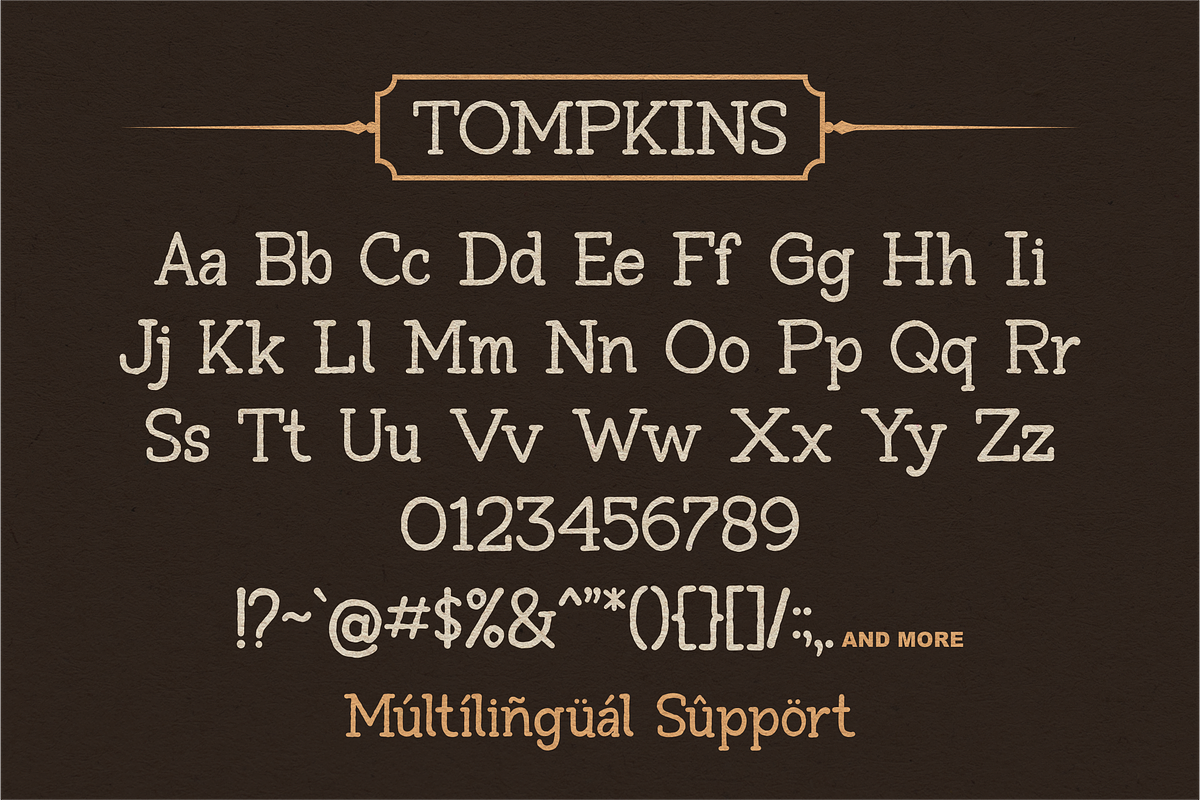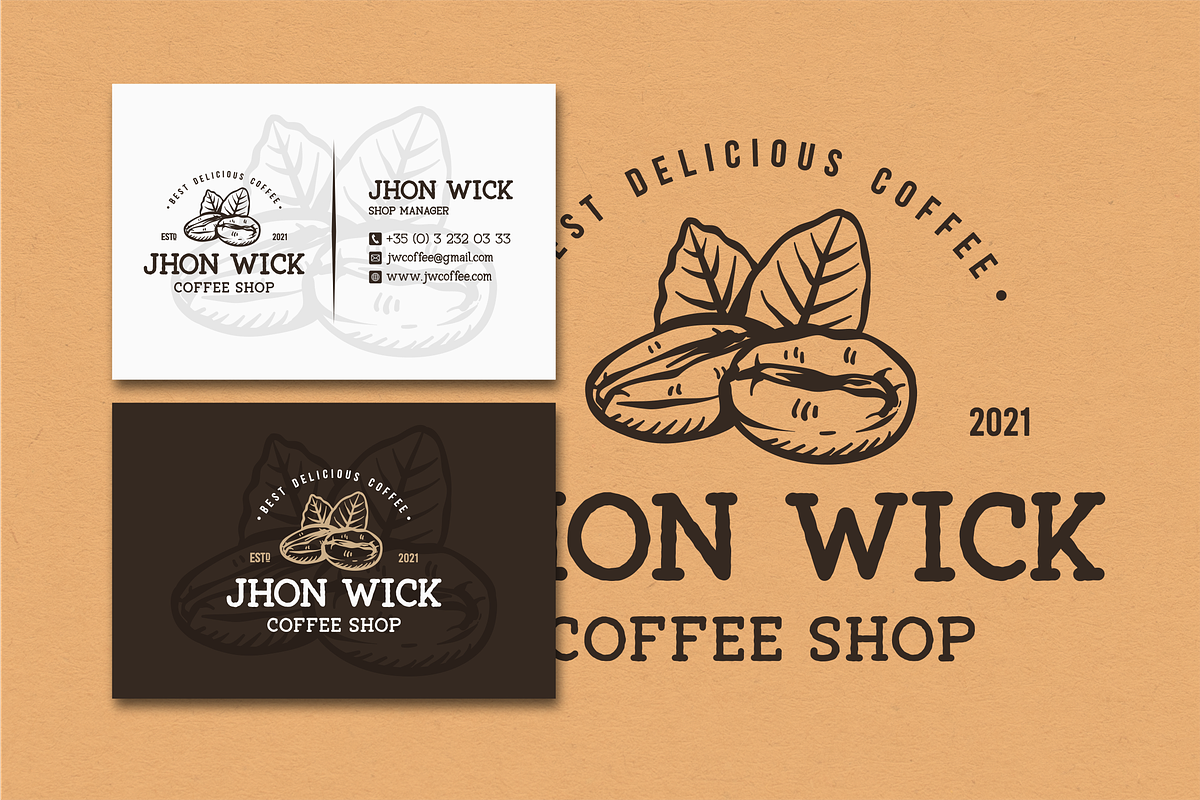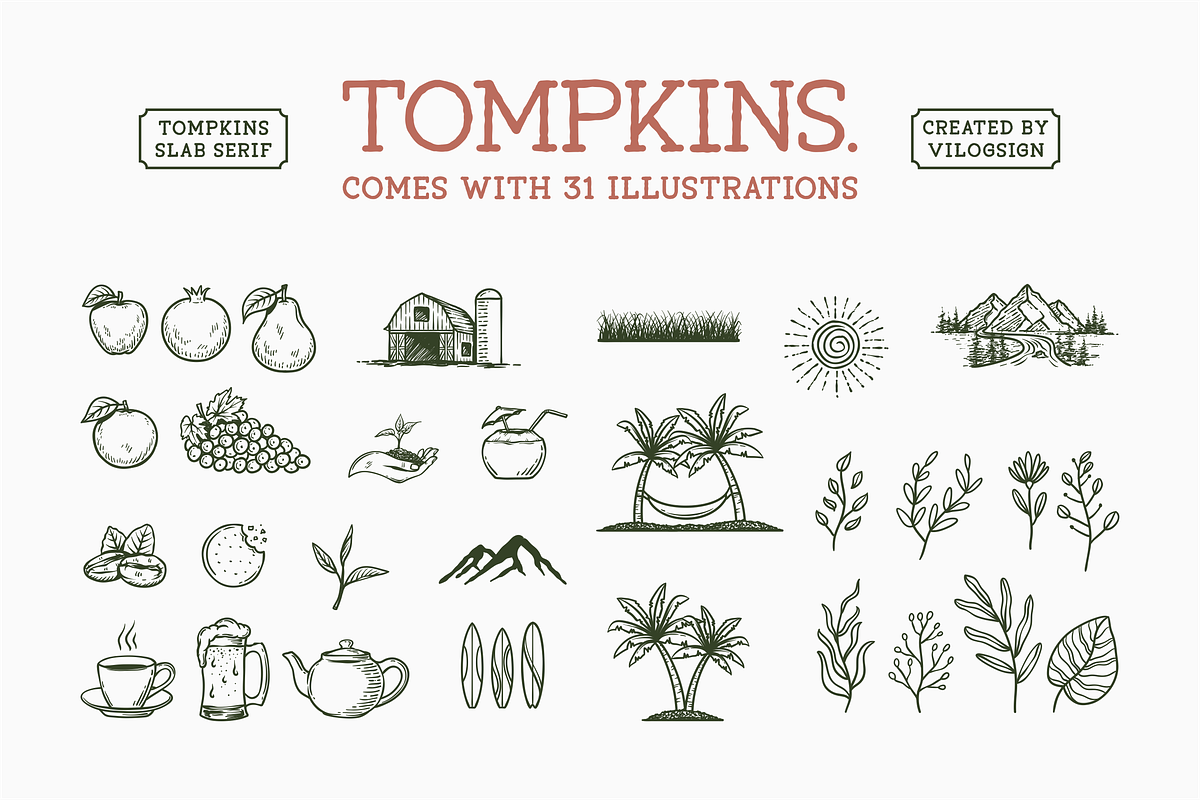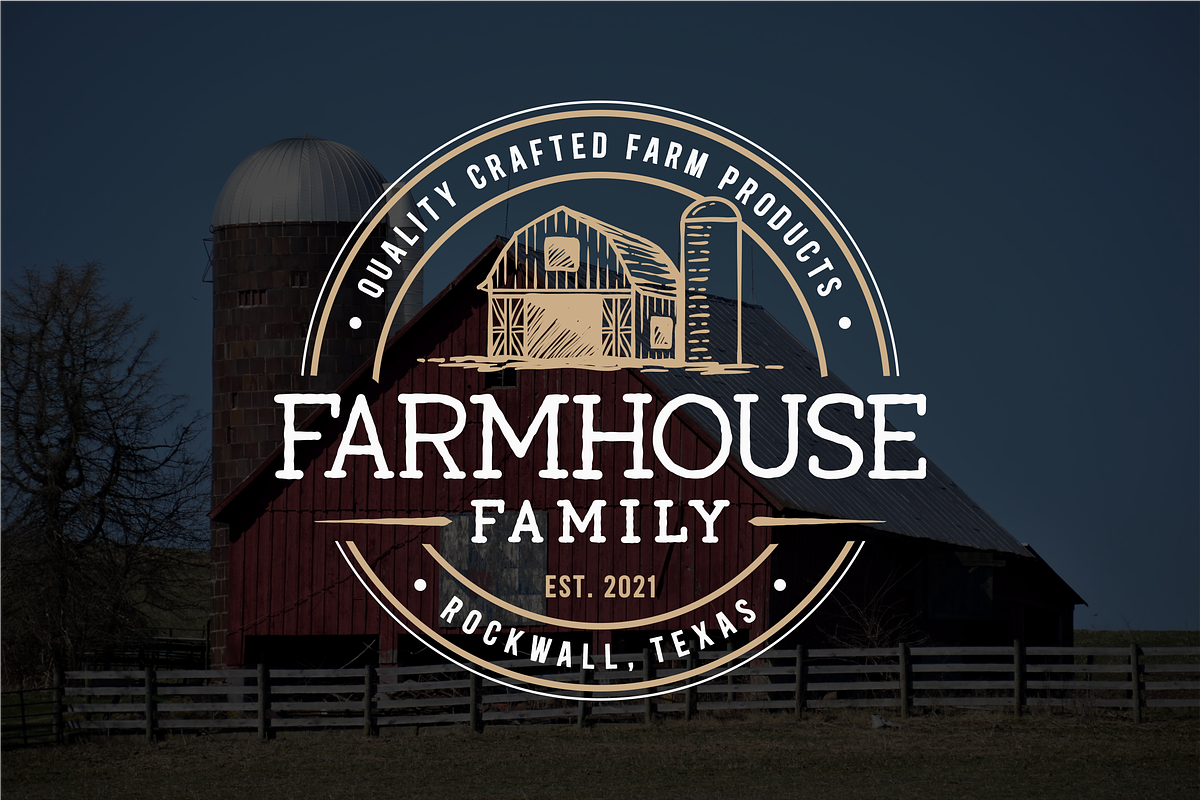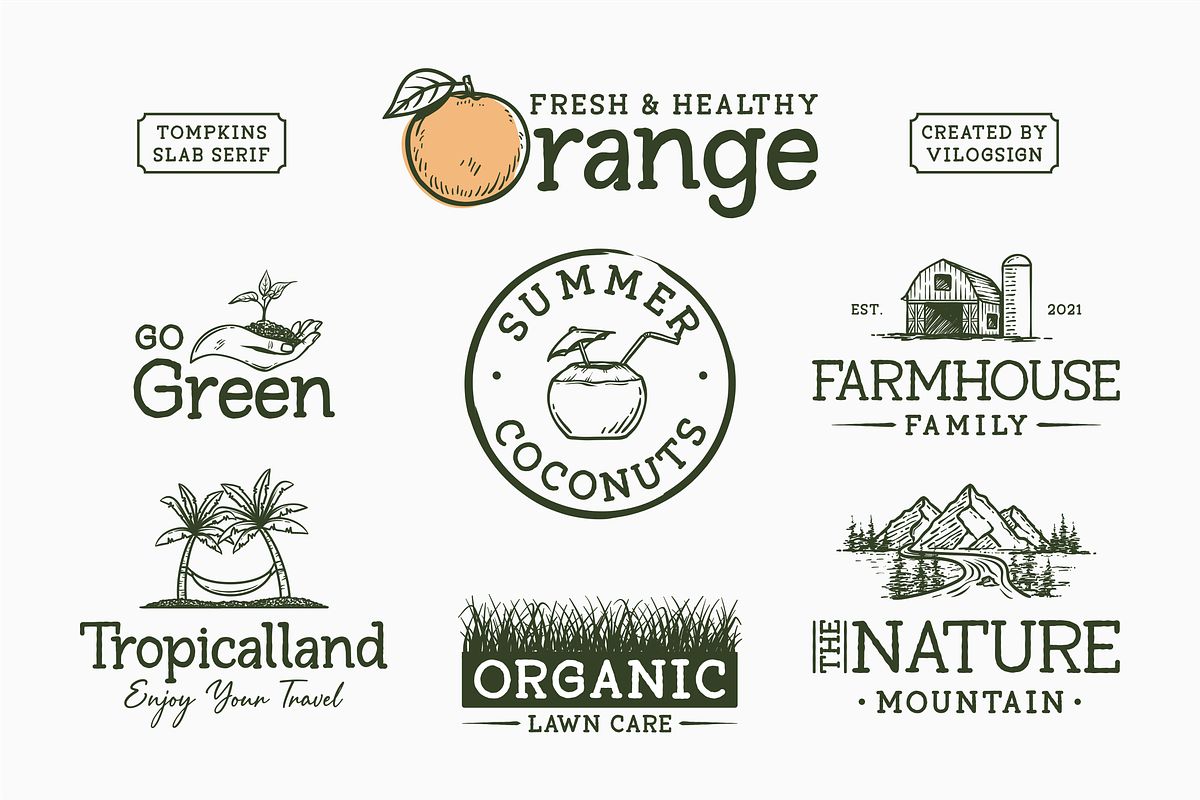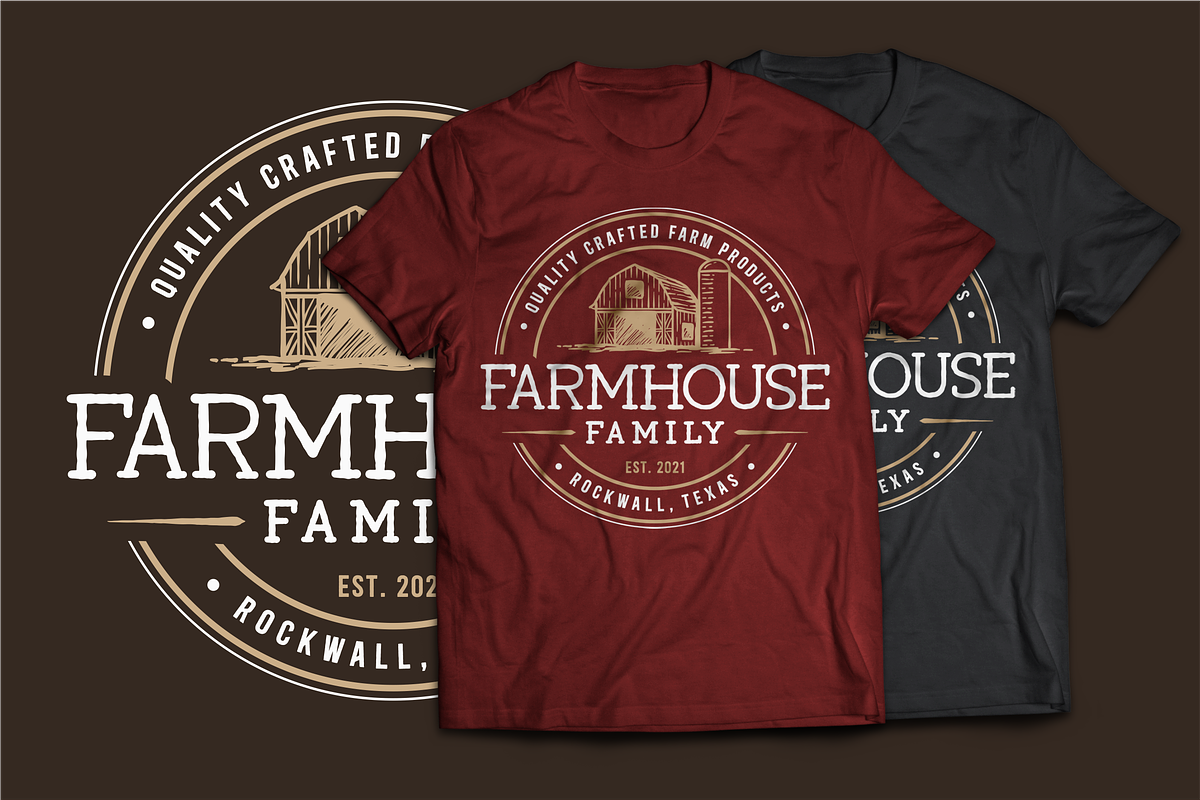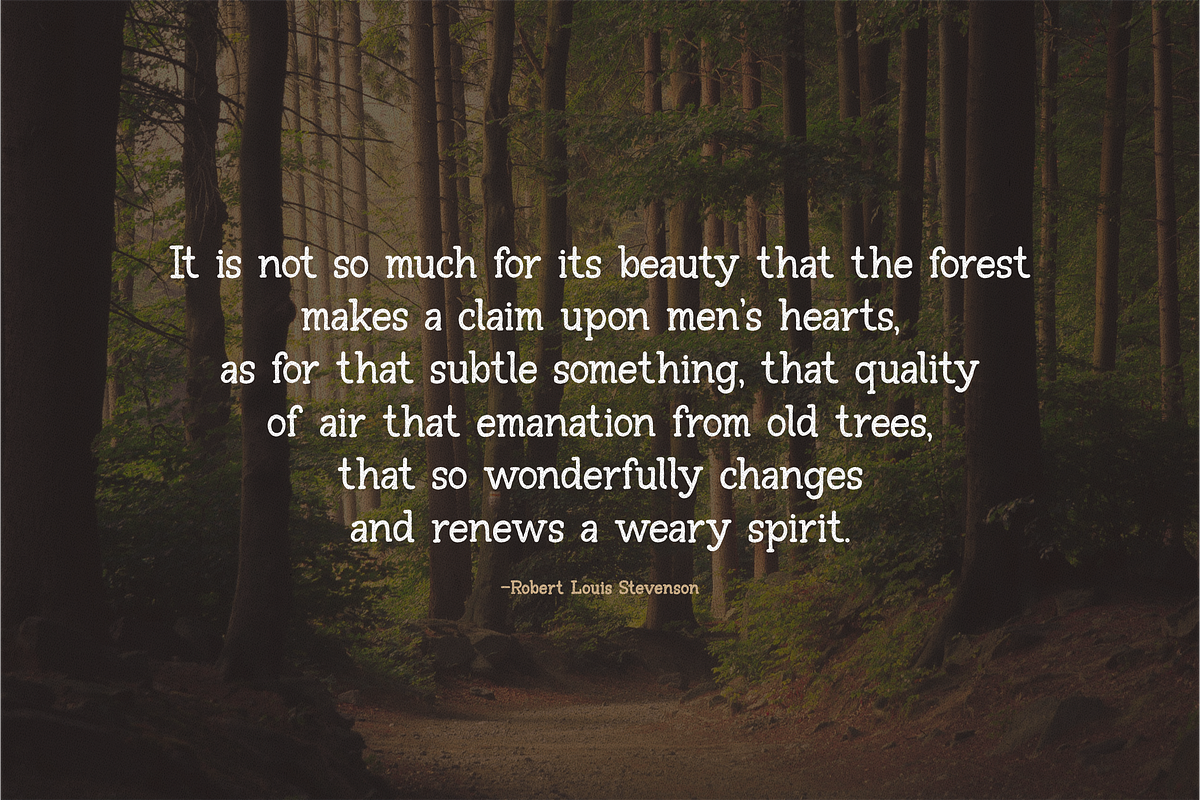
Tompkins a Vintage Slab Serif Font
Hi,,, Introducing "Tompkins" a Vintage Slab Serif Font!!!
Made with very serious make to make this font unique, chic, beautiful So perfect for your need. This font is very good with multilingual support and some variations (Normal, Bold, and Italic) to complete your need. Very suitable to make a branding, Logo, Poster, magazine, quotes, packaging, and other.